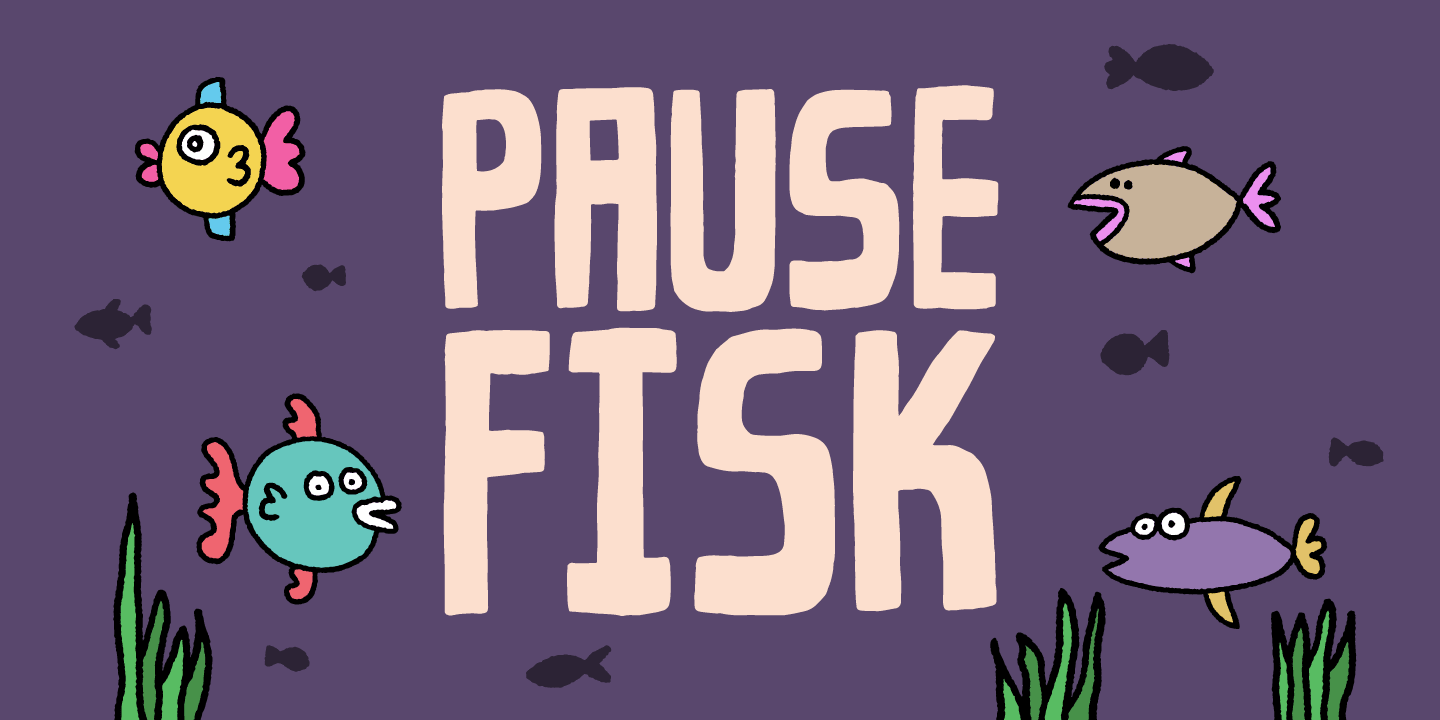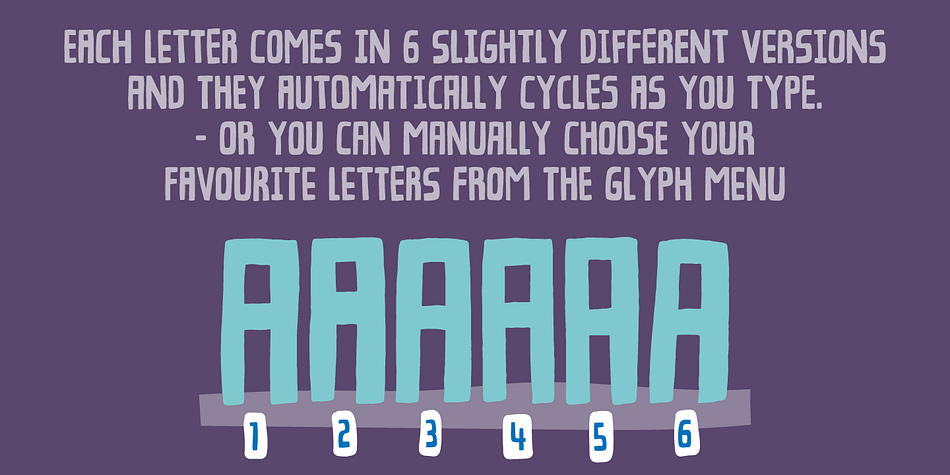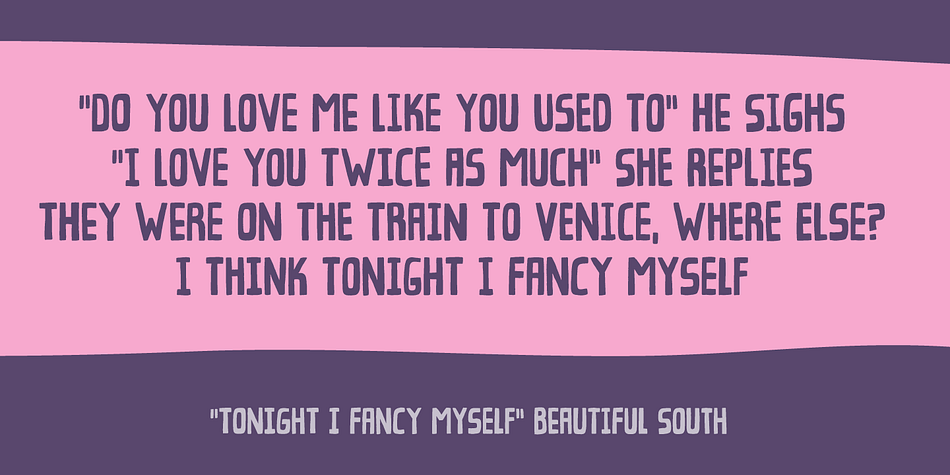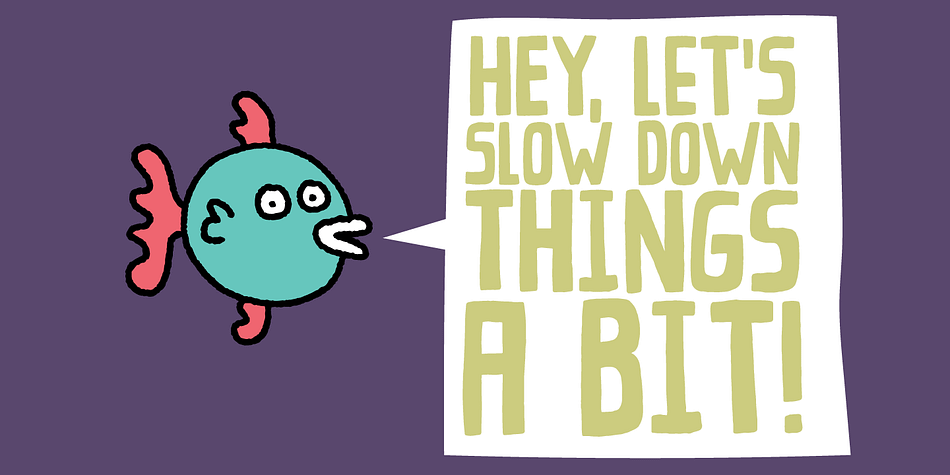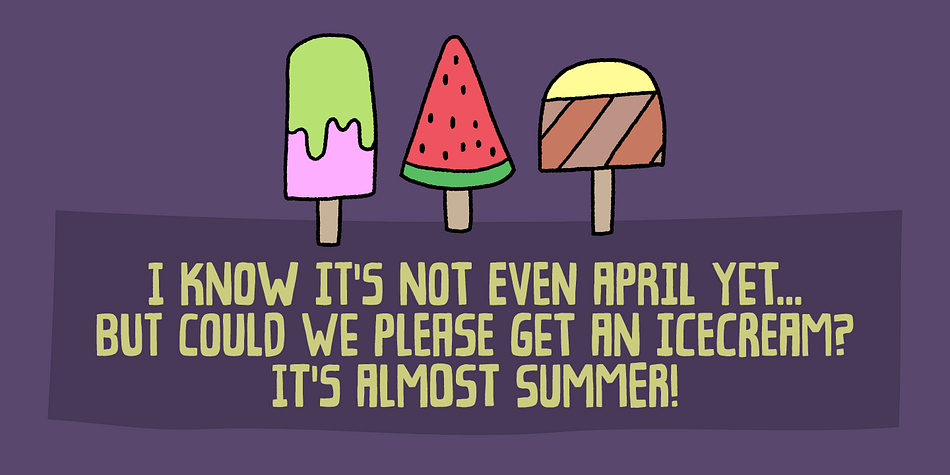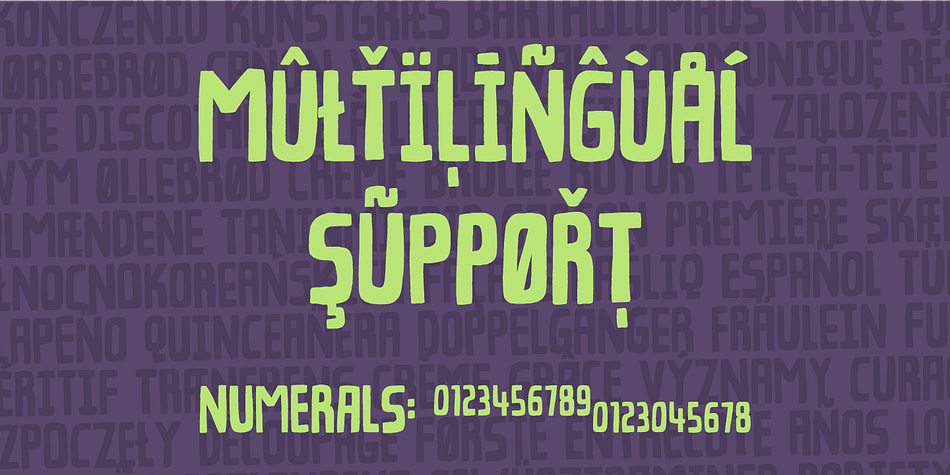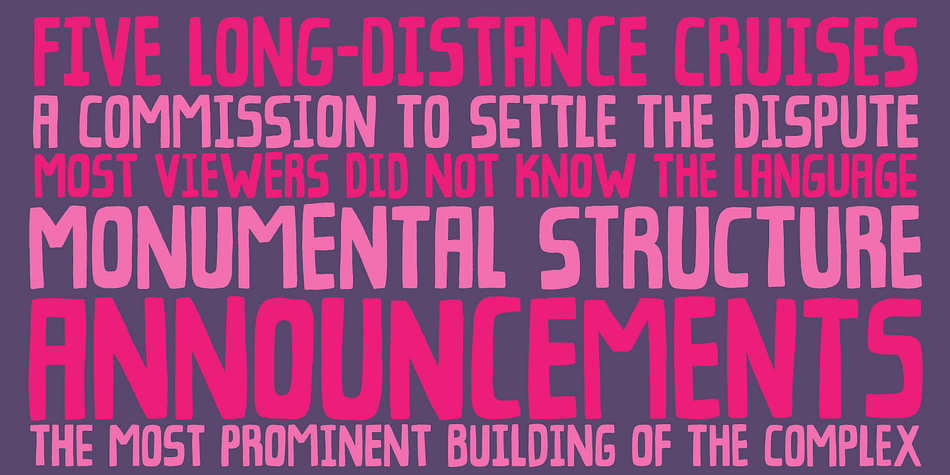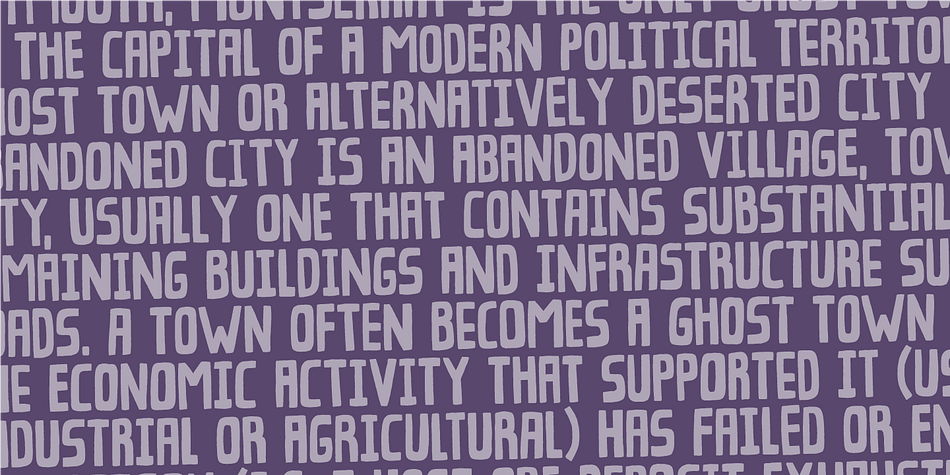
Designed by Jakob Fischer, Pausefisk is a hand display font family. This typeface has two styles and was published by Bogstav.
I wanted to mix the handmade look with both comic and grafitti, but leaving an organic laid back feeling. The result is this: Pausefisk. A font with smooth, handdrawn curves and a total of 6 different versions of each letter.
Pausefisk is actually something from my childhood: when the TV-programs where finished (yes, there were no TV after midnight!) the only thing to see was a camera pointed at a fishtank…and that went on for hours!